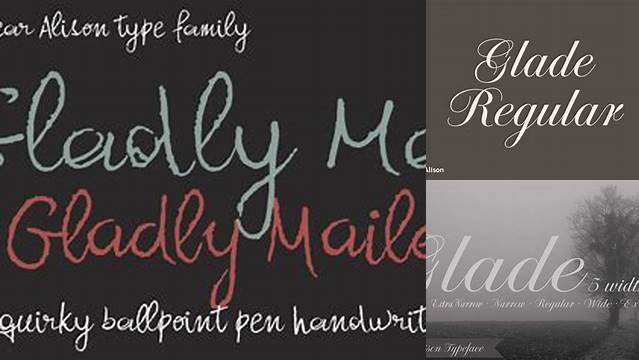
Glade Font By Dear Alison: Free Download Guide
Are you looking to add a touch of elegance and sophistication to your design projects? Look no further! In this article, we'll delve into the exquisite Glade by Dear Alison font, a typeface that's been making waves in the design community. We'll explore its unique characteristics, discuss its best uses, and, most importantly, guide you on how to download it for free. So, buckle up, fellow design enthusiasts, and let's embark on this typographic journey!
Unveiling the Charm of Glade by Dear Alison Font
The Glade by Dear Alison font is a stunning creation that effortlessly blends modern aesthetics with a classic touch. Its graceful curves and elegant strokes exude a sense of sophistication, making it a perfect choice for a wide range of design applications. Whether you're working on branding materials, wedding invitations, or editorial layouts, this font is sure to add a touch of class to your project. This font family is not just another typeface; it's a design tool that can elevate your work from ordinary to extraordinary. The attention to detail in each glyph is evident, showcasing the designer's passion and skill. The Glade font's unique personality makes it stand out in a sea of generic fonts, giving your projects a distinct and memorable identity. Its versatility allows it to be used in both headings and body text, making it a valuable asset in any designer's toolkit.
Why is Glade by Dear Alison Font so Popular?
The popularity of the Glade font stems from its ability to strike a balance between elegance and readability. It's not just a pretty face; it's also a highly functional typeface that performs well in various contexts. The clean lines and generous spacing ensure that the text remains legible even at smaller sizes, while the stylish serifs add a touch of sophistication. Furthermore, the font's versatility makes it a favorite among designers working on diverse projects, from branding and advertising to editorial design and web typography. The Dear Alison Font family provides a cohesive look and feel across all your designs. This is crucial for maintaining brand consistency and creating a professional image. The font's aesthetic appeal, combined with its practical usability, has made it a go-to choice for designers worldwide.
Key Features that Make Glade Stand Out:
- Elegant Design: The font's graceful curves and stylish serifs exude sophistication and class.
- Versatility: It works well in a variety of design applications, from headings to body text.
- Readability: The clean lines and generous spacing ensure legibility even at smaller sizes.
- Unique Personality: Glade stands out from generic fonts, giving your projects a distinct identity.
- Modern yet Classic: It blends modern aesthetics with a timeless appeal, making it suitable for a wide range of projects.
Best Uses for Glade by Dear Alison Font
Now that we've established the charm and versatility of the Glade by Dear Alison font, let's explore its best uses. This typeface isn't just a one-trick pony; it's a versatile workhorse that can shine in various design scenarios. From creating stunning logos to crafting elegant invitations, Glade is a reliable choice for designers seeking a touch of sophistication. The font's ability to convey both professionalism and creativity makes it a valuable asset in any design project. Understanding the best applications for a font is crucial to maximizing its impact. Using Glade in the right context can elevate your designs and communicate your message effectively. So, let's dive into the specific areas where Glade truly shines.
1. Branding and Logo Design:
Your brand's visual identity is crucial, and your choice of font plays a significant role in conveying your brand's personality. The Glade by Dear Alison font is an excellent choice for brands that want to project an image of elegance, sophistication, and trustworthiness. Its clean lines and stylish serifs create a professional and memorable logo. The Glade font's versatility allows it to be adapted to various branding styles, from minimalist and modern to classic and ornate. Whether you're creating a logo for a high-end fashion brand or a boutique hotel, Glade can help you communicate your brand's unique identity effectively. The font's legibility also ensures that your logo remains recognizable across different platforms and sizes, from business cards to billboards. Using Glade in your branding materials can help you create a cohesive and impactful visual identity that resonates with your target audience.
2. Wedding Invitations and Stationery:
When it comes to wedding invitations, the font you choose sets the tone for the entire event. The Glade font is a perfect choice for couples who want to create a sense of romance, elegance, and timeless beauty. Its graceful curves and delicate serifs add a touch of sophistication to any invitation suite. The Dear Alison Font family can be used for everything from the main invitation to the RSVP cards, thank you notes, and place settings, creating a cohesive and elegant look. The font's readability ensures that all the important information is conveyed clearly, while its stylish appearance adds a touch of luxury. Using Glade in your wedding stationery can help you create a memorable and visually stunning invitation suite that reflects your personal style and sets the stage for your special day. It's a font that exudes romance and celebration, making it an ideal choice for wedding-related designs.
3. Editorial Design and Print Layouts:
In the world of editorial design, readability is paramount, but aesthetics also play a crucial role. The Glade font strikes the perfect balance between these two factors, making it an excellent choice for magazines, books, and other print layouts. Its clean lines and generous spacing ensure that the text remains legible even in long paragraphs, while its stylish serifs add a touch of visual interest. The Glade font can be used for both headings and body text, creating a cohesive and professional look throughout your publication. Its versatility allows it to be adapted to various editorial styles, from formal and academic to casual and conversational. Using Glade in your editorial designs can help you create visually appealing and highly readable layouts that engage your readers and communicate your message effectively. It's a font that's both functional and beautiful, making it a valuable asset for any print project.
4. Website Design and Digital Typography:
In the digital realm, typography plays a critical role in user experience. The Glade font can be used to create websites with a touch of elegance and sophistication. Its clean lines and clear letterforms ensure that the text is easily readable on screens, while its stylish serifs add a touch of visual interest. The Glade font can be used for headings, body text, and navigation menus, creating a cohesive and professional online presence. Its versatility allows it to be adapted to various website styles, from minimalist and modern to classic and ornate. Using Glade in your website design can help you create a visually appealing and user-friendly online experience that reflects your brand's identity and engages your visitors. It's a font that translates well to the digital world, maintaining its elegance and readability across different devices and browsers.
Conclusion: Embrace the Elegance of Glade
The Glade by Dear Alison font is a typeface that exudes elegance, sophistication, and versatility. Whether you're designing a logo, creating wedding invitations, or laying out a magazine, this font is sure to add a touch of class to your project. While finding a free download might require some searching, the effort is well worth it. Remember to always download fonts from reputable sources and respect licensing terms. So, go ahead, guys, embrace the charm of Glade and elevate your designs to new heights! With its timeless appeal and versatility, this font is a valuable addition to any designer's toolkit. It's a typeface that can help you communicate your message effectively and create visually stunning designs that leave a lasting impression. Happy designing!